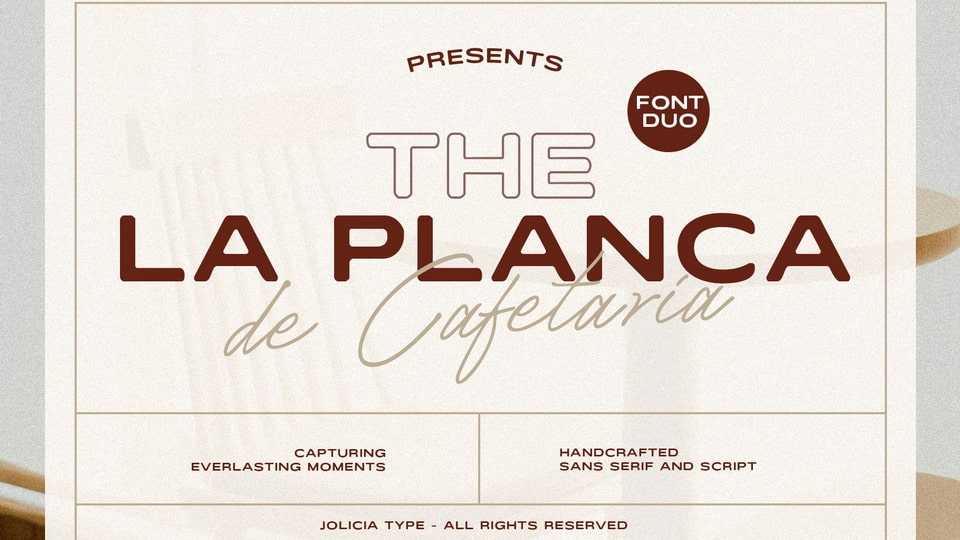
Download La Planca de Cafetaria font, a modern typeface that blends the sophistication of an elegant sans serif with the charm of a handwritten script.